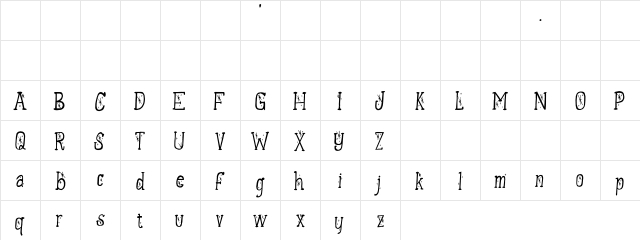
Complete Twilight Ozone Regular glyph index. Displaying only characters natively supported by Twilight Ozone Regular font.
Twilight Ozone is a composed and adaptable typeface that performs quietly and consistently across a wide range of design contexts. Its slender proportions lend an understated elegance to any composition.